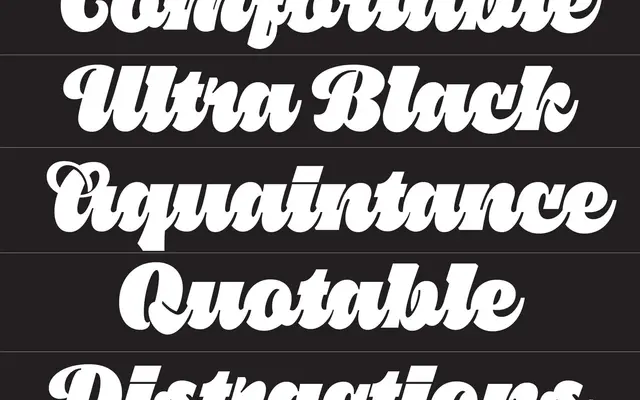
Pika Ultra Script
A heavy connected script built around notch connections discovered during an extreme-weight lettering exercise, refined with alternates and OpenType features.
Born from a lettering exercise in extreme weight, the distinctive notch connections between letterforms define Pika Ultra Script's character. A single Regular weight carries the family, its unbroken flow suited to display settings where energy and rhythm matter. Alternates, ligatures and OpenType features extend its flexibility beyond the novelty of its origins.
A connected, flowing script with extreme weight and distinctive notch connections at letterform joints, placing it firmly in the connected script category with display-weight characteristics.